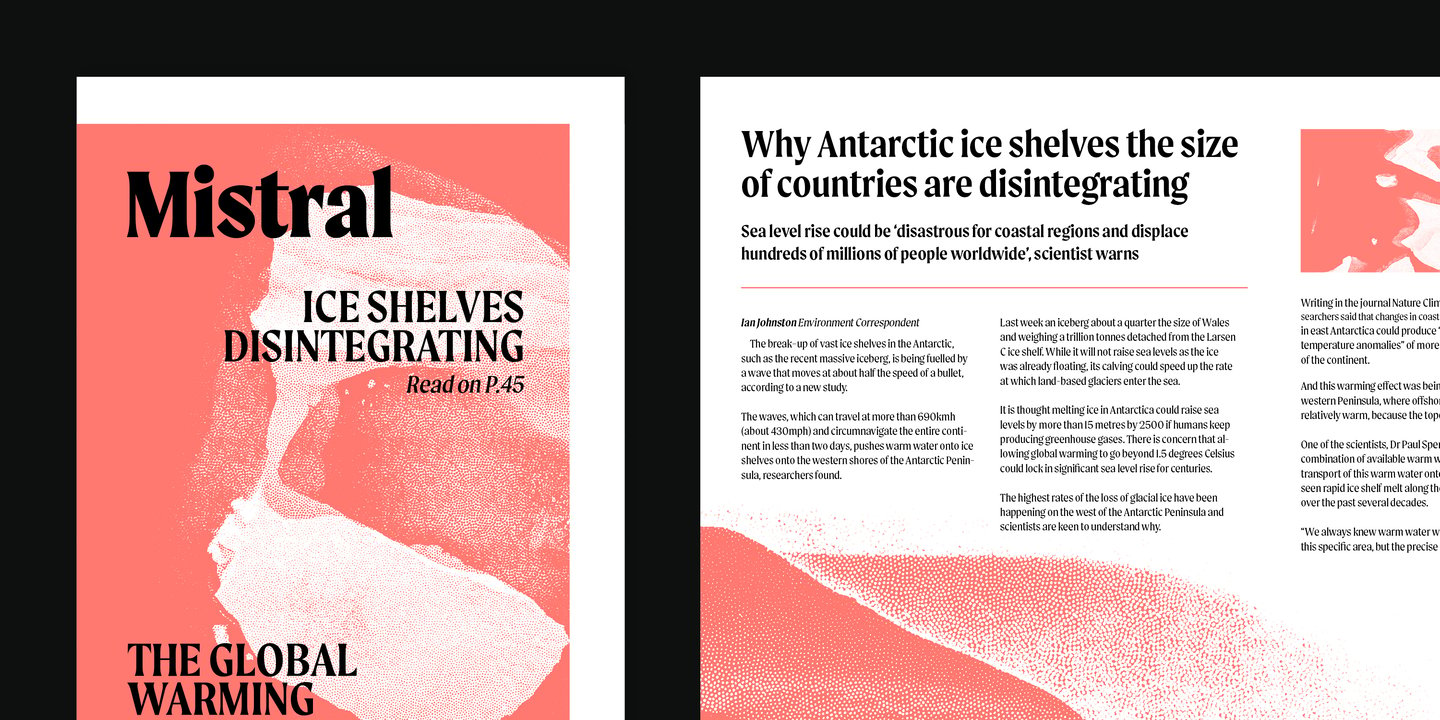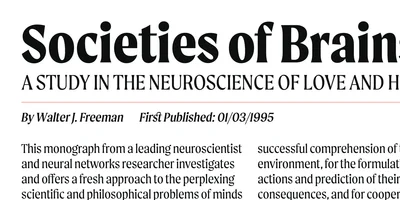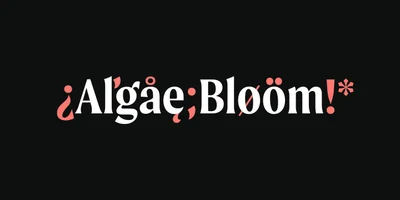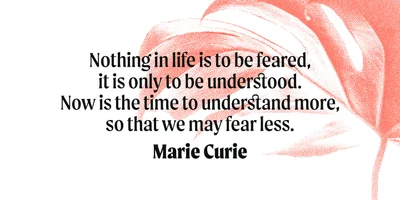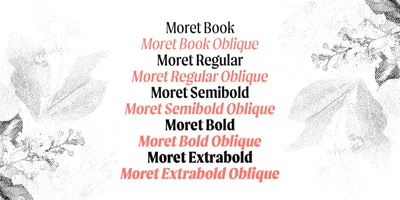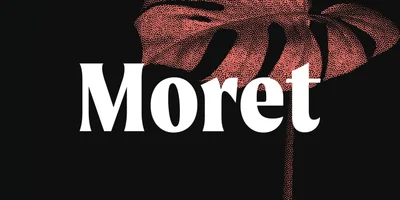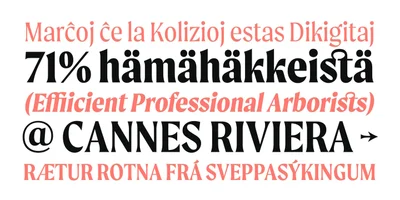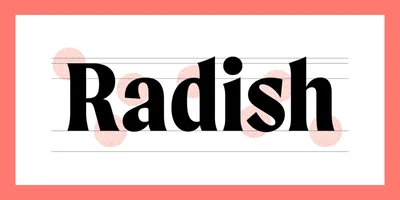
Moret vs Teodor
Moret and Teodor are both serif typefaces sharing a display foundation. Where Moret leans art deco, retro, Teodor brings high contrast, fashion. Compare which suits your Display project.
Moret
Display
Teodor
Recommended: Moret
- art deco, retro design character
- Suited for Branding
Consider: Teodor
- high contrast, fashion design character
- Suited for Editorial